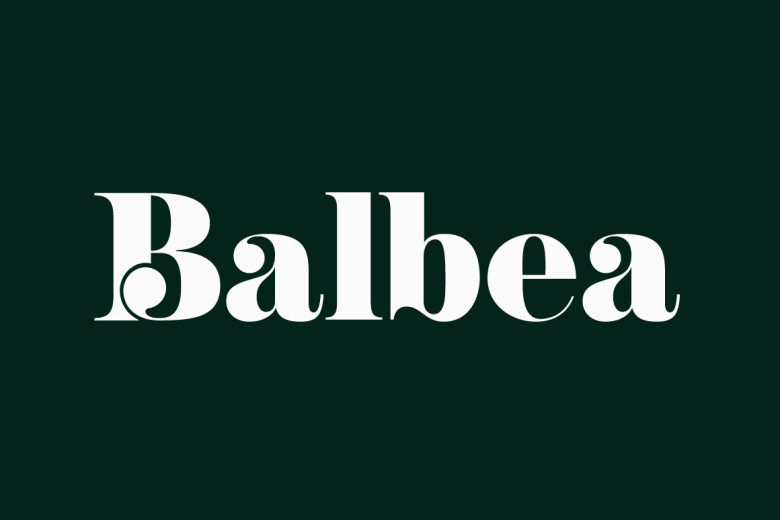
Balbea Font
Balbea exudes refined grace and sophistication as an elegant serif typeface. Carefully crafted details, balanced strokes and its beautiful design make Balbea an excellent way to add class and refinement to any project.
Balbea Serif Font